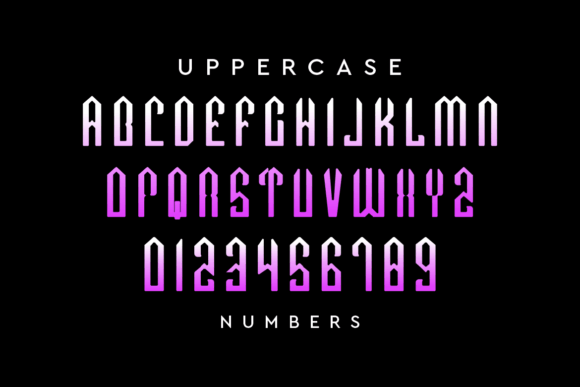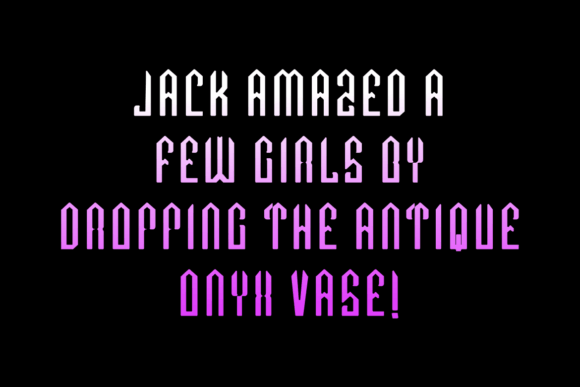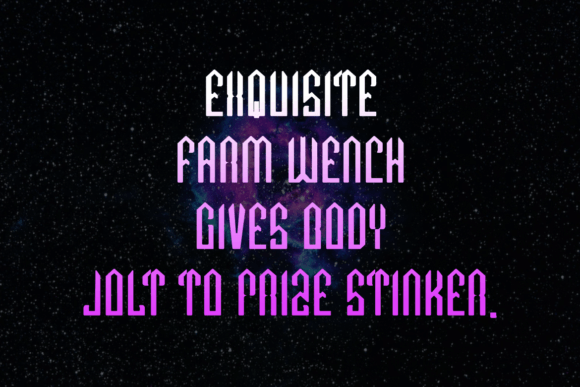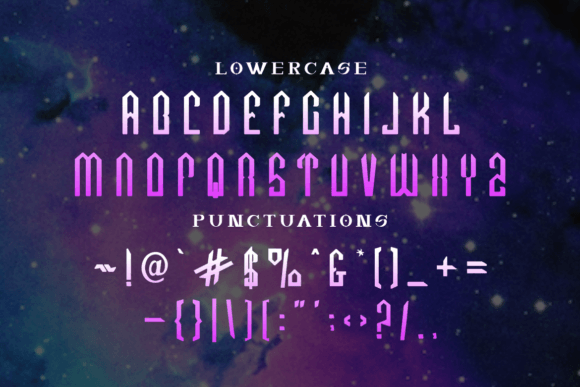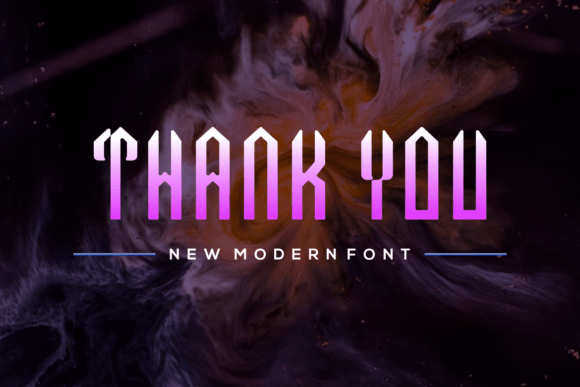
Introduction to Kosmos Plant Font Font
Fonts play a crucial role in design, and the Kosmos Plant Font font is a typeface that brings both character and versatility to any project. Whether you’re working on a branding project, a website, or a print design, the Kosmos Plant Font font offers a unique style that can elevate your work.
Kosmos Plant is a cool and unique display font.
Its stylish and modern appearance makes it suitable for a wide range of design ideas Add it confidently to your creative projects and enjoy the results.
Key Features of Kosmos Plant Font Font
Why Choose Kosmos Plant Font Font?
The Kosmos Plant Font font is more than just a typeface – it’s a design tool that helps you communicate your message with style and clarity. Its unique character set and versatile design make it suitable for a wide range of applications, from elegant invitations to bold headlines.
With its carefully crafted letterforms and balanced proportions, the Kosmos Plant Font font ensures readability and visual appeal across all mediums.
What makes Kosmos Plant Font font special?
The Kosmos Plant Font font stands out with its unique design, exceptional readability, and versatility across various design applications.